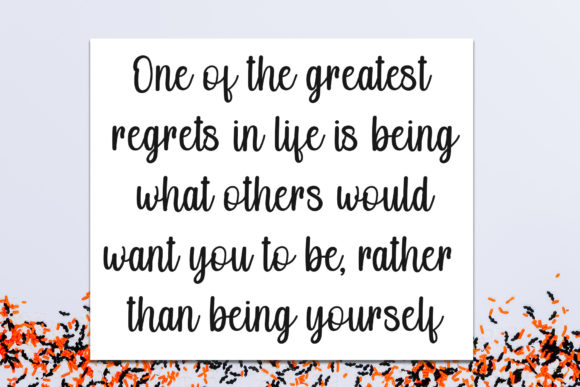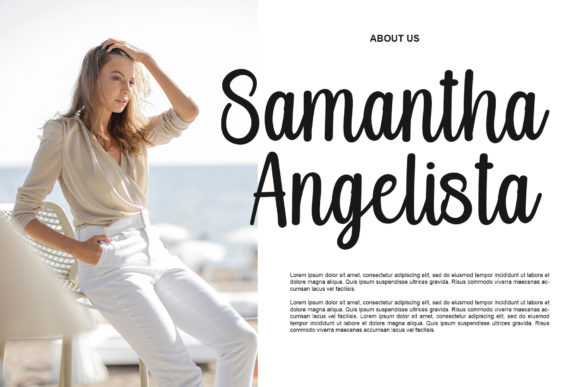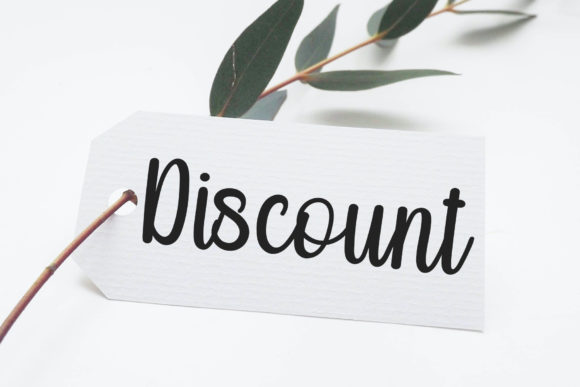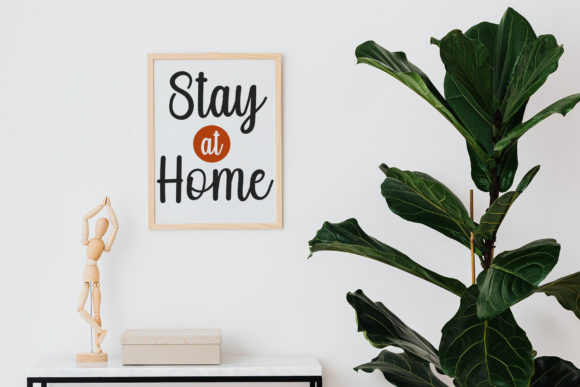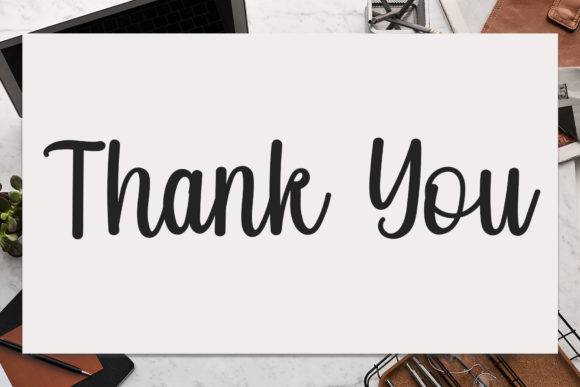
Hosting Font
About Hosting Font
Hosting is a romantic and enchanting calligraphy typeface that gracefully glides along the baseline with characters that exude a captivating dance. Its casual yet elegant touch makes it a perfect choice for projects seeking a harmonious blend of informality and sophistication. What sets Hosting apart is its PUA encoding, allowing effortless access to a plethora of glyphs and swashes, providing a delightful level of customization for your designs.
The font’s charming and romantic demeanor makes it ideal for a variety of applications, especially those that call for a touch of sweetness. Hosting beautifully enhances wedding invitations, capturing the essence of romance and adding an extra layer of allure to every detail. Its casual elegance is also well-suited for branding, giving logos a unique and memorable flair that resonates with a romantic sensibility.
In both print and digital media, Hosting shines brightly. Its romantic and sweet calligraphy breathes life into advertisements, product packaging, and labels, imparting a sense of intimacy and charm to your visual communication. The PUA encoding feature ensures easy access to the extensive array of glyphs and swashes, providing ample room for creative expression, whether applied to watermarks in photography or stationery for a personalized touch.
In essence, Hosting stands out as a typeface that not only embraces romance and sweetness but also offers a user-friendly experience with its PUA encoding. Its characters dance along the baseline with a casual elegance that makes it a versatile and charming choice for designers seeking to infuse their projects with a touch of romantic allure.